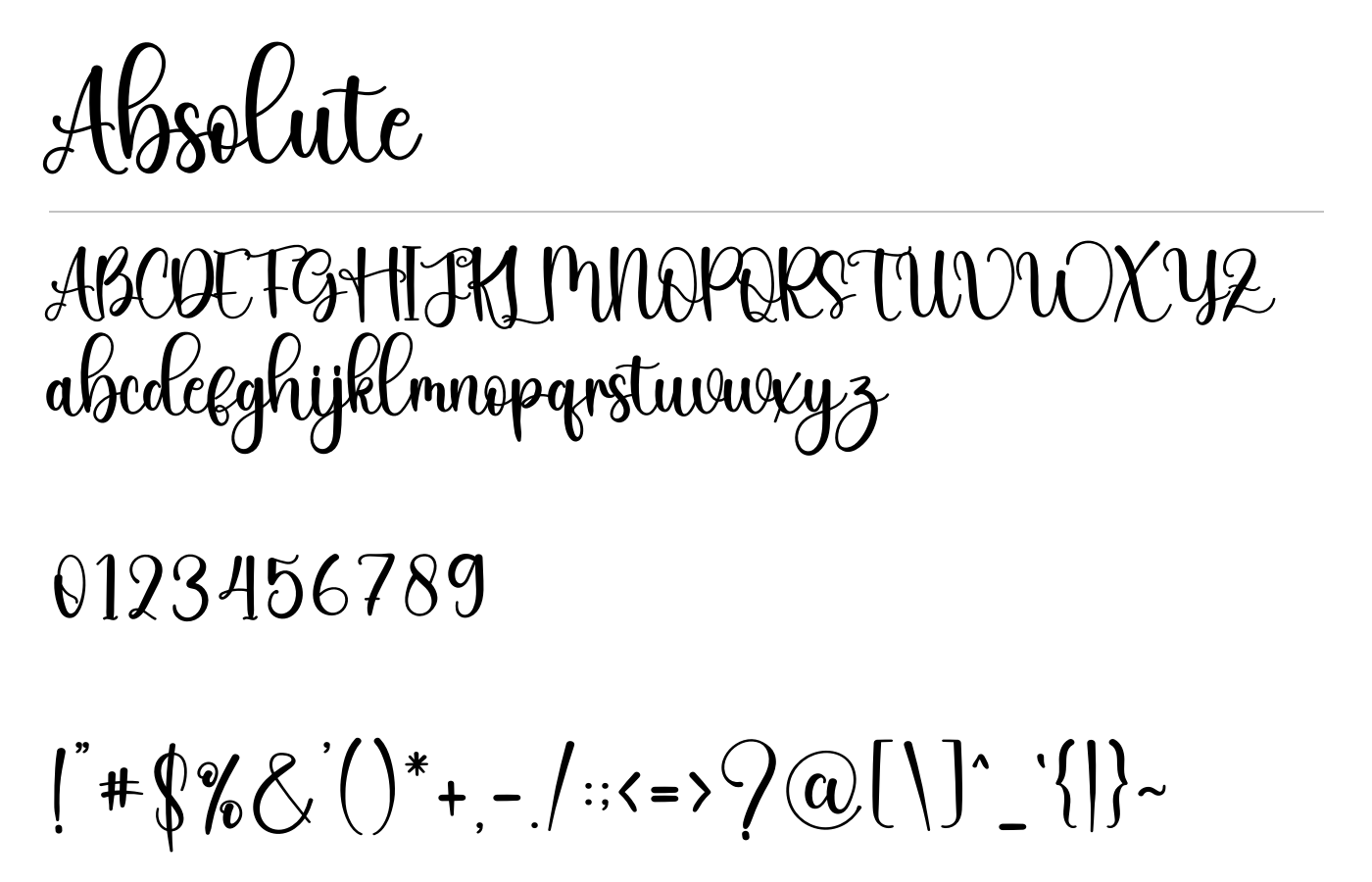
Absolute Font is a charming script typeface with a lively, handwritten feel, featuring smooth, flowing strokes and playful loops that give it a warm and friendly personality. Its medium weight and balanced proportions make it ideal for creative designs, such as invitations, branding, and social media, where a personal and elegant touch is desired. This font shines best in headlines and decorative text, adding a stylish yet approachable flair to any project.
Absolute Font